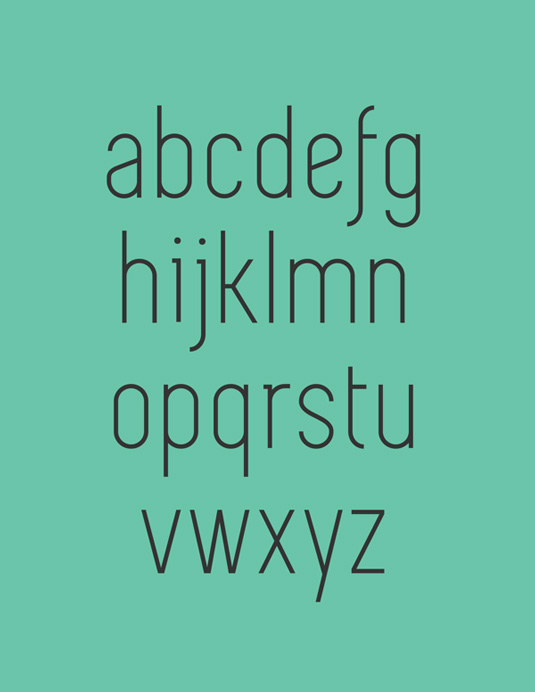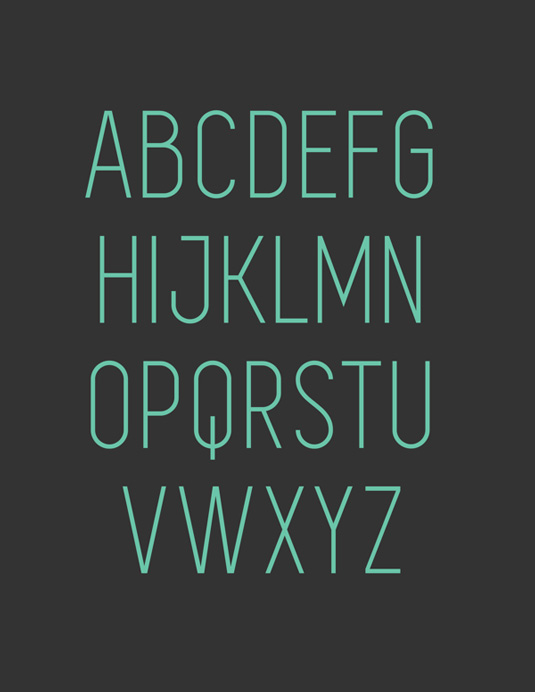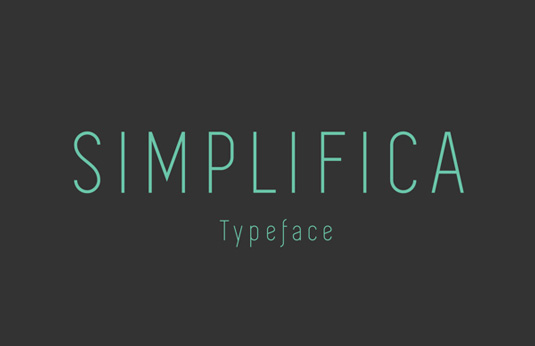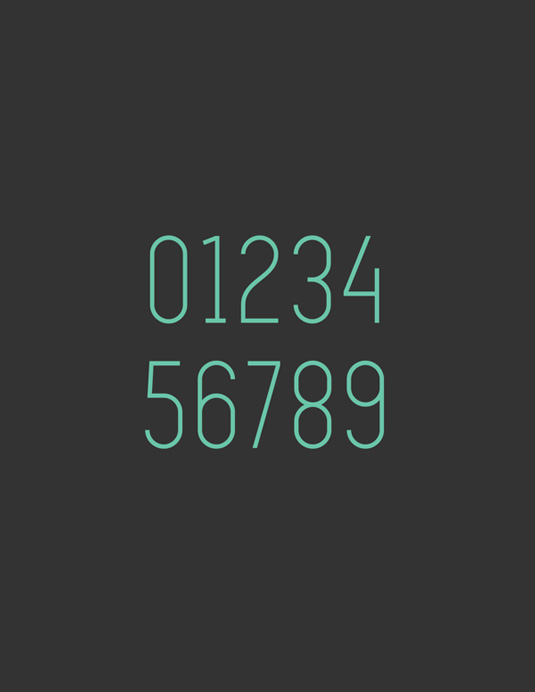
Font of the day: Simplifica
Simplifica from KAIWA
A fine, simple and clear font, Simplifica is a free design from KAIWA. The designer describes it on Behance as "a slightly condensed sans-serif typeface featured by an uniform and thin line width. Its high positioned capsheight and ascender favours legibility."